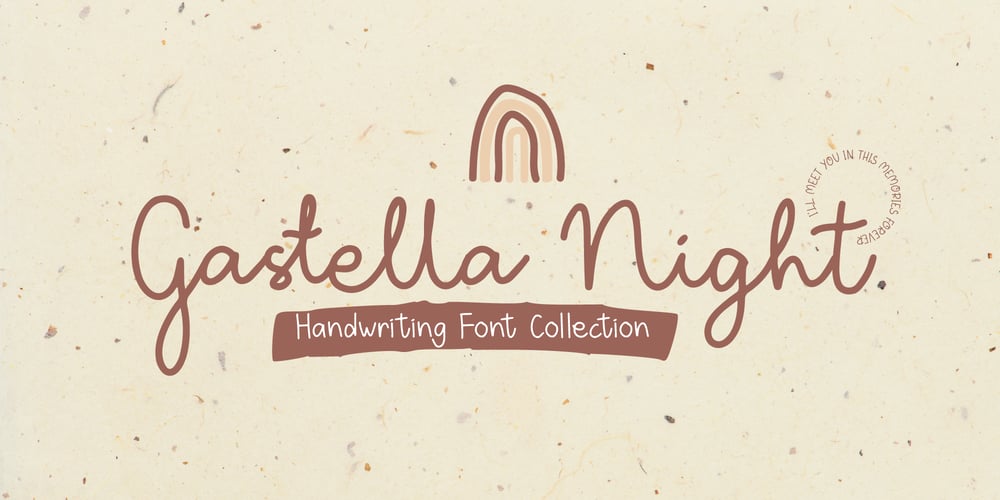
Gastella Night Font Family was designed by Lia Almuknisa and published by Fromletterel. Gastella Night contains 4 styles and family package options. Gastella Night is a handwritten font family consist of script, casual handwritten, and unique all caps font. In other words you can get four styles of fonts at once, all styles in this family is well matched to each other.Gastella Night Script font comes with few ligatures to make it looks more natural, also comes with slant style named Gastella Night Script Italic to make it looks more delicate when used as signature.Gastella Night Regular is a casual handwritten font, so it will be suitable to all kind of design, as tagline, quotes, etcGastella Night All Caps consist the uppercase only, add this font to beautify your design with it’s unique style.